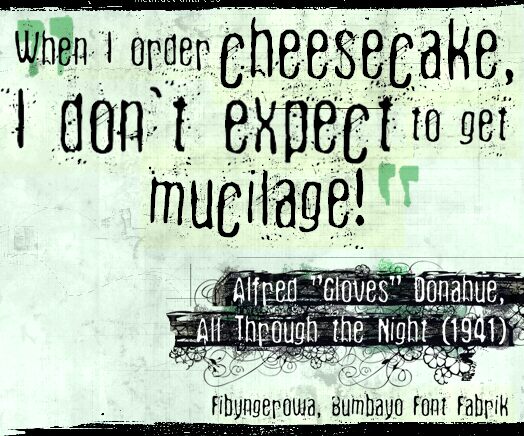
Fibyngerowa by Bumbayo Font Fabrik is a free grunge display font with tall, uneven letters, narrow proportions, and abrupt changes in stroke width that look brushed quickly onto paper. Ink splatters and blotchy edges keep the surface visibly rough.
Underground music and horror-comedy themes suit the scratchy lettering, especially on gig posters, album artwork, and event flyers, where its splattered texture can echo torn-paper collage, photocopied photographs, or scuffed artwork. It also fits merchandise for skate labels and independent streetwear brands whose customers prefer raw, hand-rendered graphics to polished corporate lettering.
Fibyngerowa
Bumbayo Font Fabrik